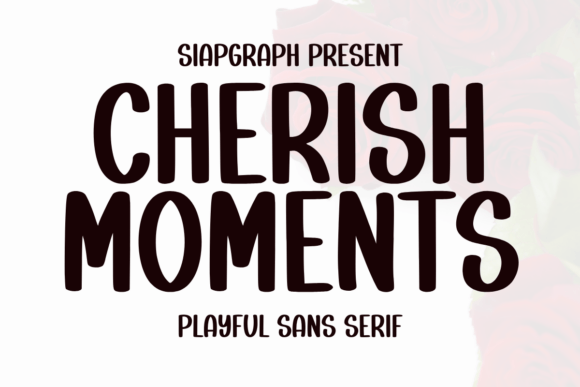
Cherish Moments Font
Cherish Moments is a fun and playful sans-serif font with a cute and charming style. Its natural strokes and touches give it a lively and whimsical feel.
It’s  great for journals, KDP projects, notebooks, memos, planners, teaching materials, Cricut designs, silhouettes, sublimation, key chains, women’s clothing, and other creative projects.